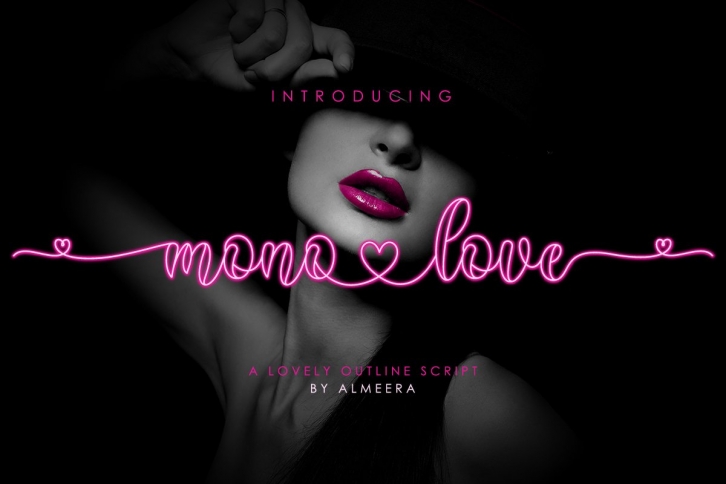
monolove is a trendy and unique font with an authentic style. It was designed by Almeerastudio and it's a great choice for creative people who need such a font. It was released on August 14, 2020 and the file size is 18.78 MB. monolove will add an organic vibe to any design idea!